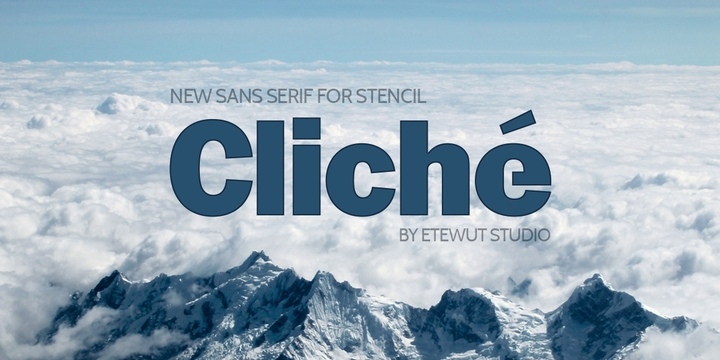
Cliche Font
The Cliche Font is a bold and striking stencil typeface that's perfect for projects that demand a raw, handcrafted feel. Its unique design, with its separated letter segments and industrial aesthetic, makes it an excellent choice for a variety of creative applications. Imagine it on a powerful poster for a street art exhibition, a distinctive logo for a workshop or a garage, or a gritty headline for a blog about urban culture. It’s also fantastic for creating unique t-shirt designs, event flyers, and product packaging where its rugged and authentic character can truly shine. The Cliche Font brings a sense of handcrafted authenticity and modern grit to any project, ensuring your designs are both memorable and impactful.
What makes this font so exciting is its distinct stencil design. The slight discrepancies in the letterforms give the impression of being hand-drawn or stamped, which is a key feature of handmade stencil advertisements. This isn’t just a font; it’s a design element that adds a layer of raw, humanistic charm. The unique look and feel of Cliche Font are what make it a powerful tool for any designer looking to create something truly special and engaging. The font adds an element of industrial style and artistic individuality that will make your designs stand out from the crowd and feel professionally crafted.
The Cliche Font family is designed with a focus on style and impact. It comes in a single, well-balanced weight that is perfect for headlines and short, impactful phrases. The font includes a full set of uppercase and lowercase letters, numbers, and a variety of punctuation marks, giving you everything you need to create a cohesive and professional look. This streamlined family makes it easy to maintain a consistent style across all your design materials, ensuring your message is always clear and full of character. While some versions of the font may have discrepancies between uppercase and lowercase forms, this is a part of its unique charm.